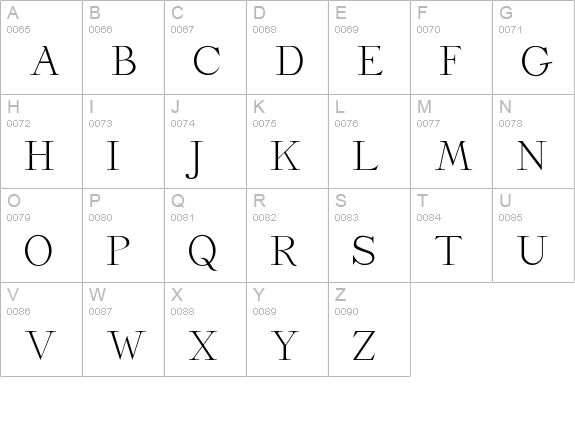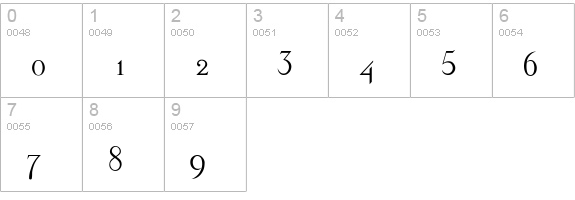
Dickens font is a timeless and elegant typeface that exudes sophistication and class. With its unique serifs and delicate curves, this font is perfect for adding a touch of vintage charm to any project. Whether you're designing a wedding invitation, a book cover, or a logo, Dickens font will elevate your work to the next level. The best part? Dickens font is available for free download at FontsMarket.com. You can easily access this beautiful font and start using it in your designs right away. Don't miss out on the opportunity to add a touch of elegance to your projects with Dickens font. Download it now and let your creativity shine!